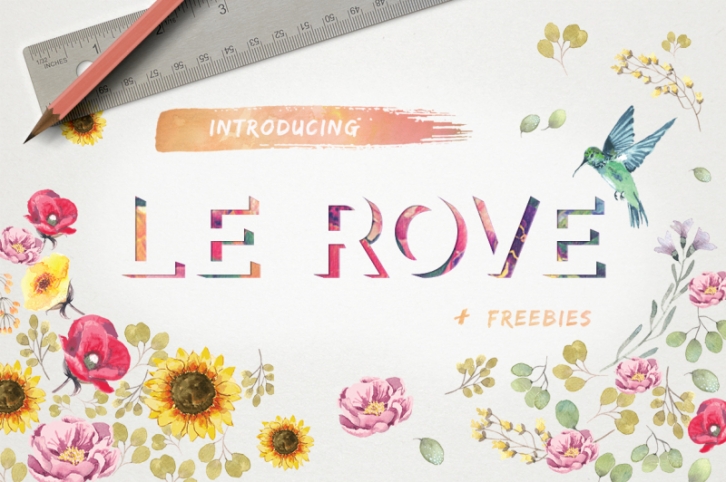
Introducing Le Rove! An all-around display font.
Le Rove is a flexible font that can be used for different purposes. Le Rove can easily match different moods and personalities whether it's serious, casual, playful, or elegant by just simply adding different textures, effect, and color that will fit your design. Your imagination is the limit!